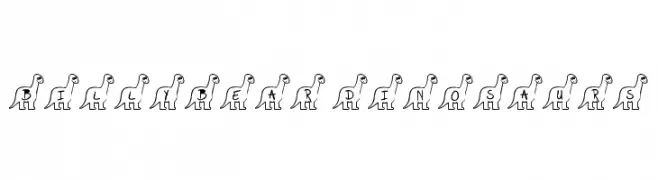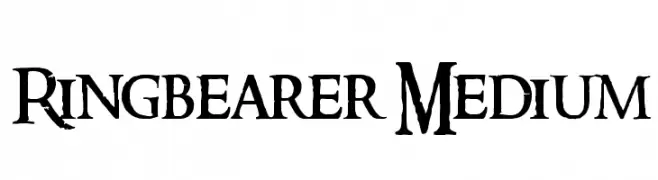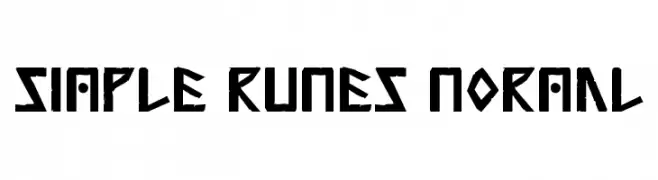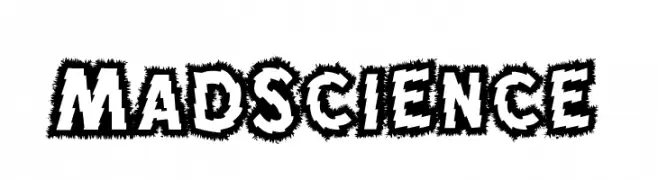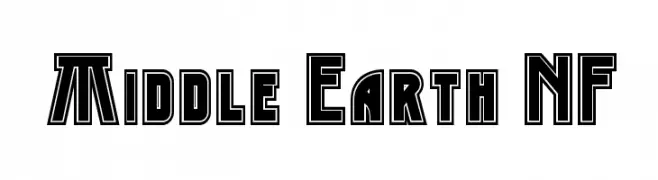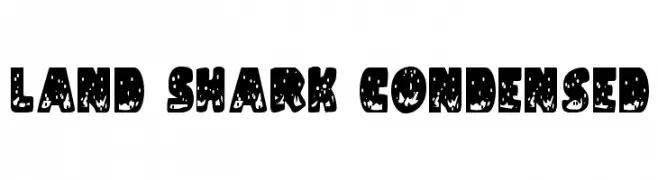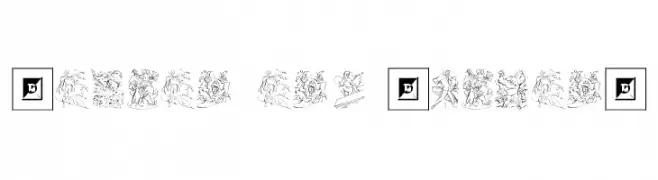
A playful font with characters embedded in dinosaur shapes, perfect for fun and imaginative projects.
A medieval-inspired font with sharp serifs and a distressed texture, perfect for fantasy themes.
A bold, jagged font with an electrifying outline, perfect for dynamic and playful designs.
A bold, outlined font with a fantasy-inspired, geometric style.
A bold, playful font with a textured, ocean-inspired design.